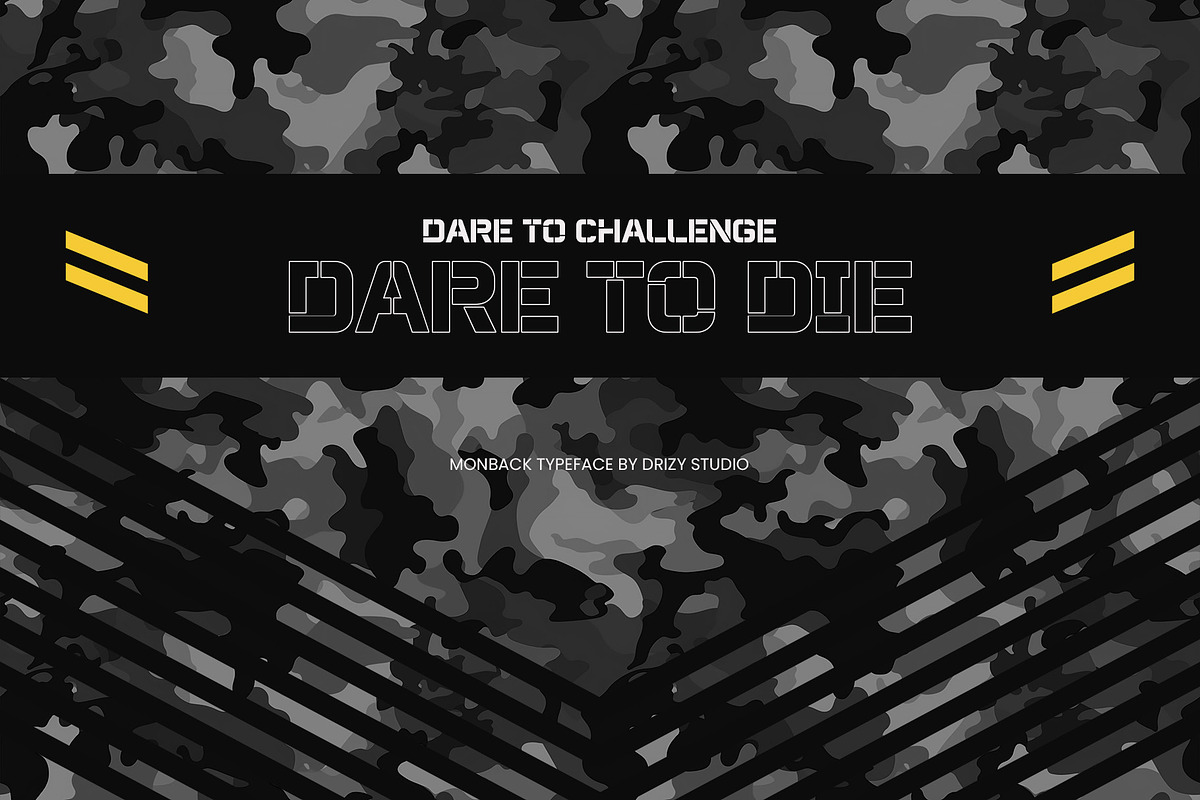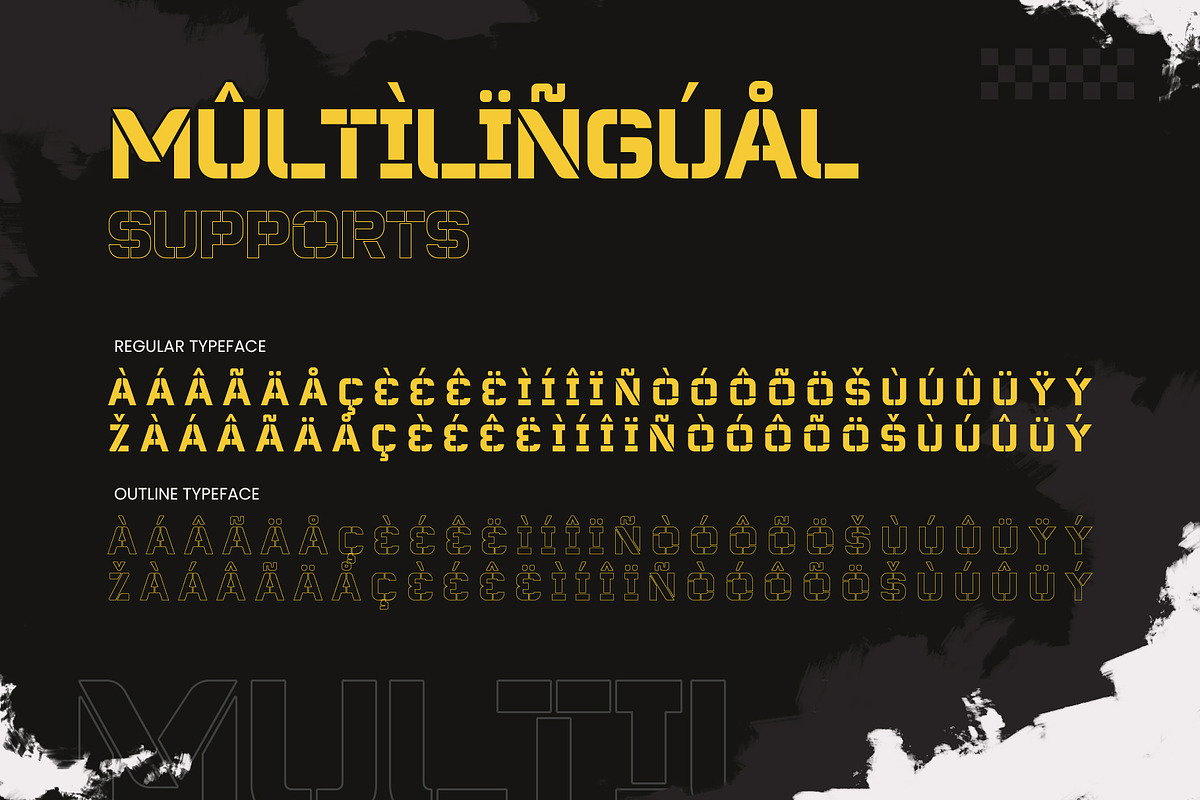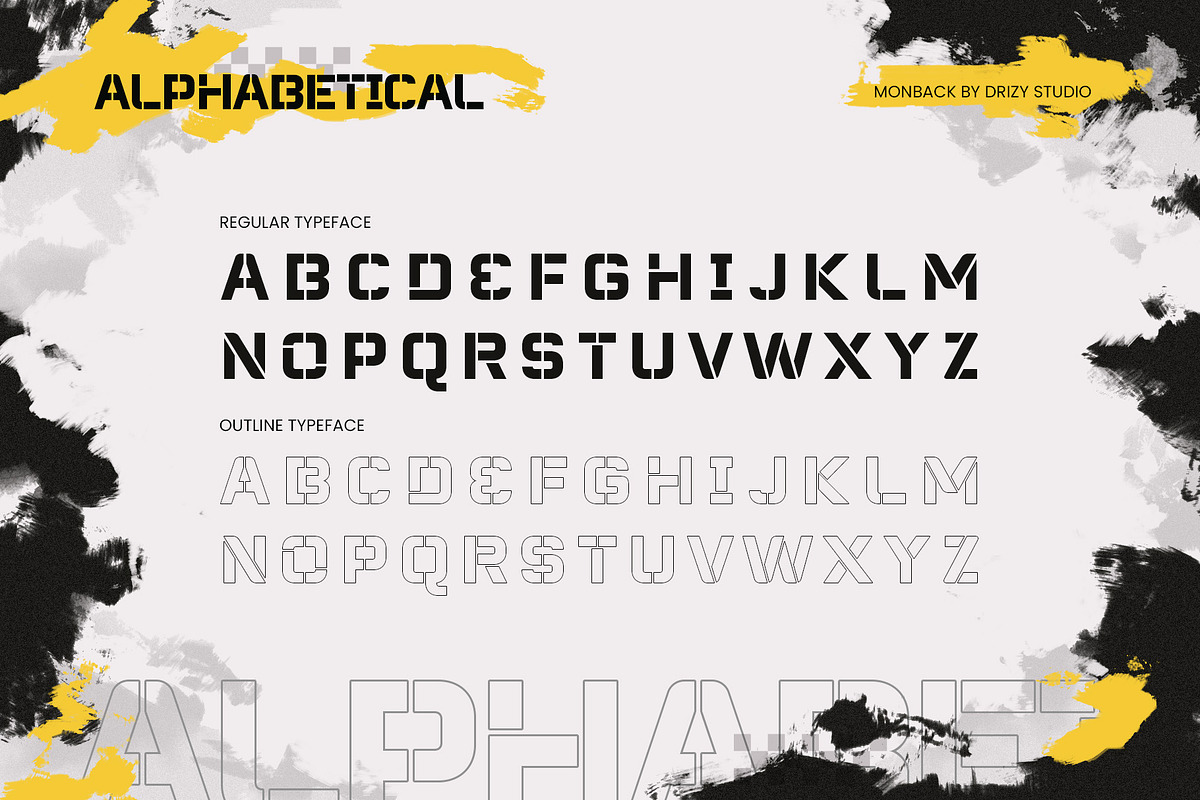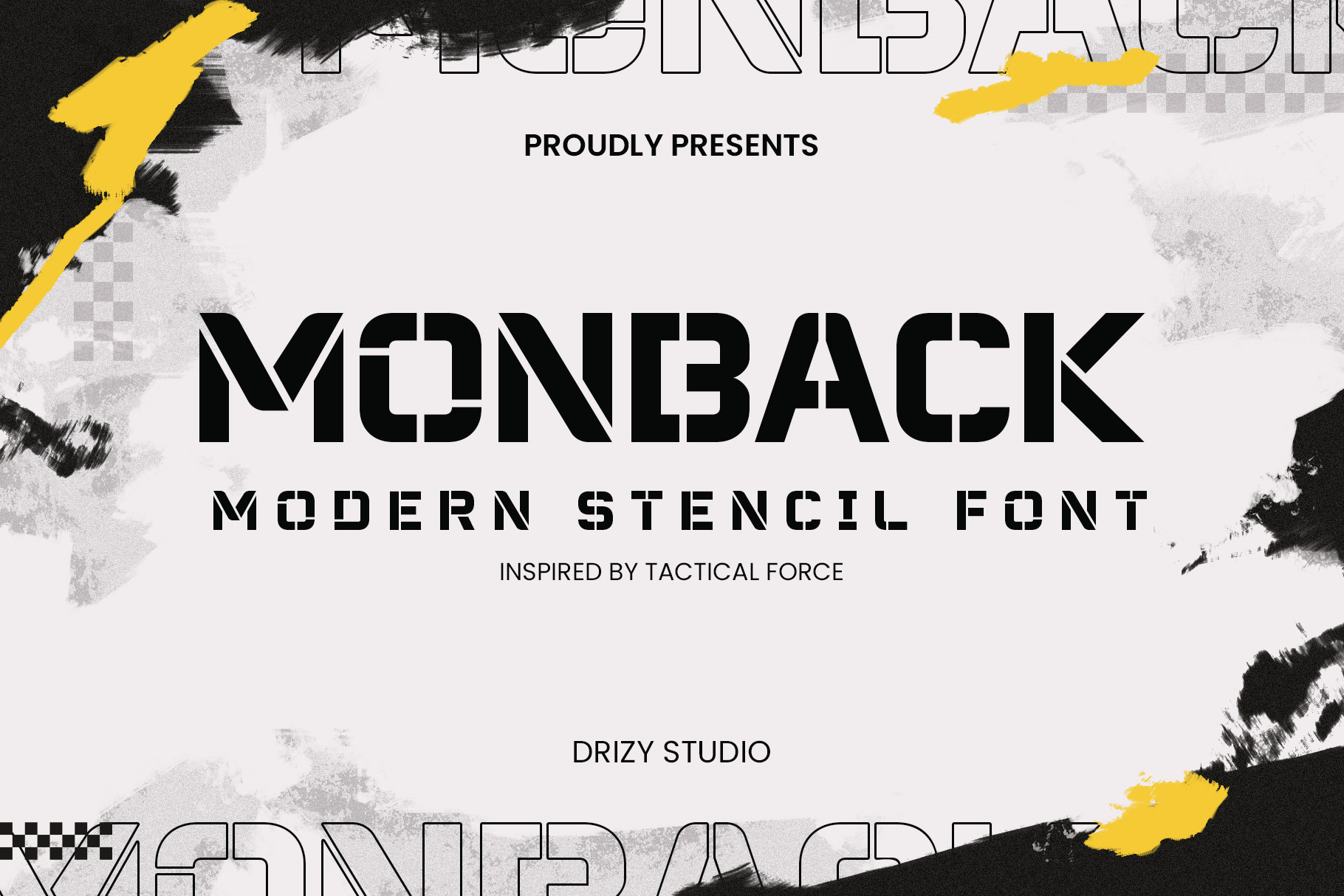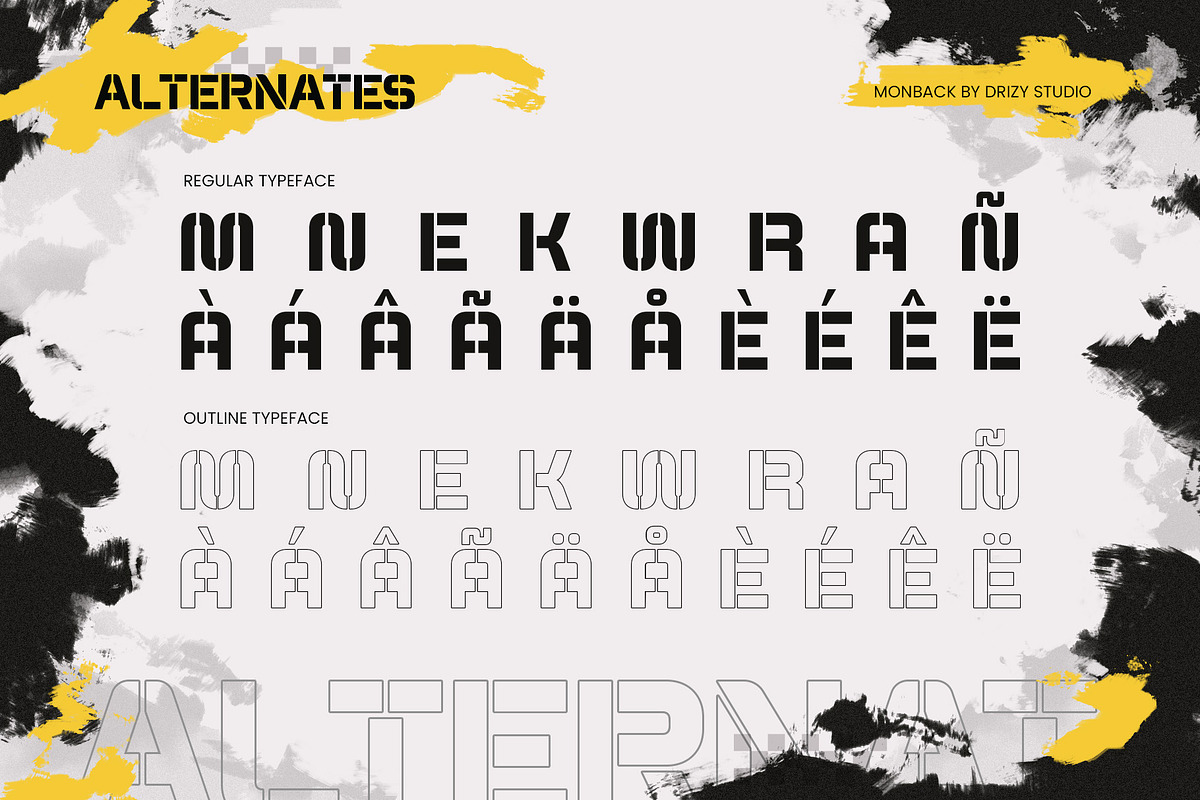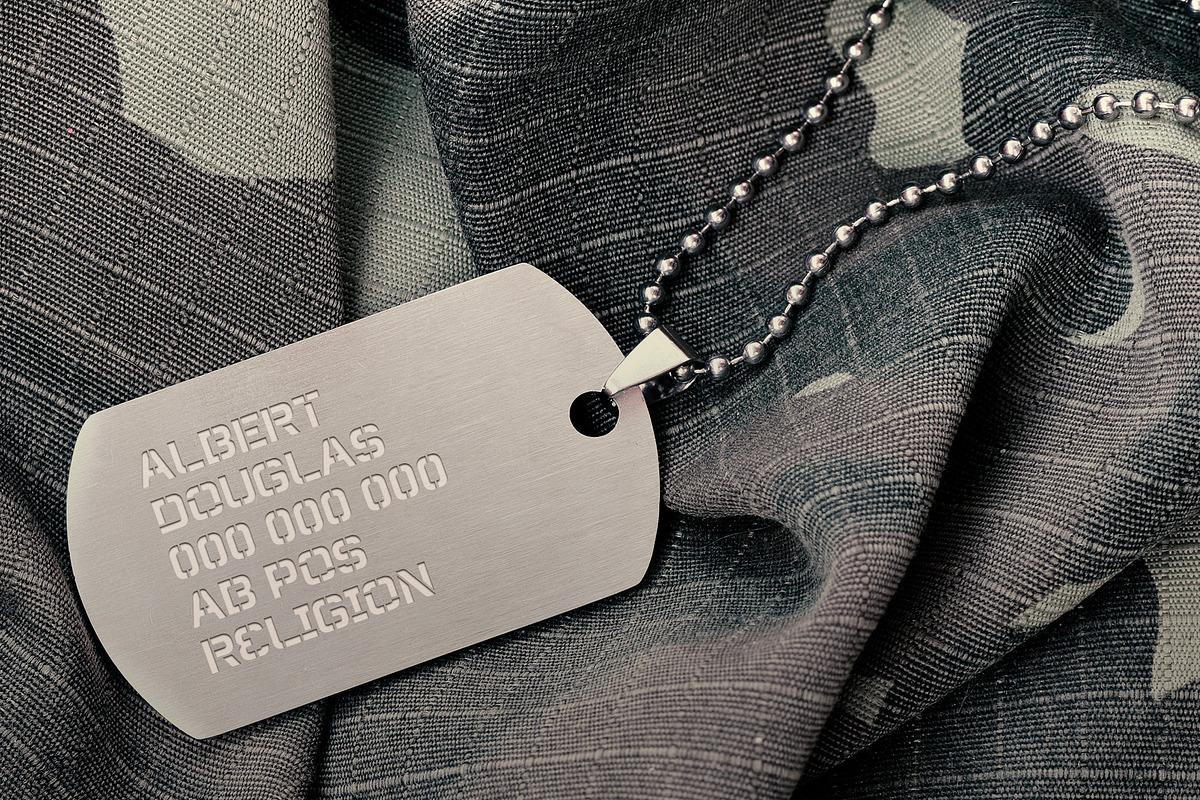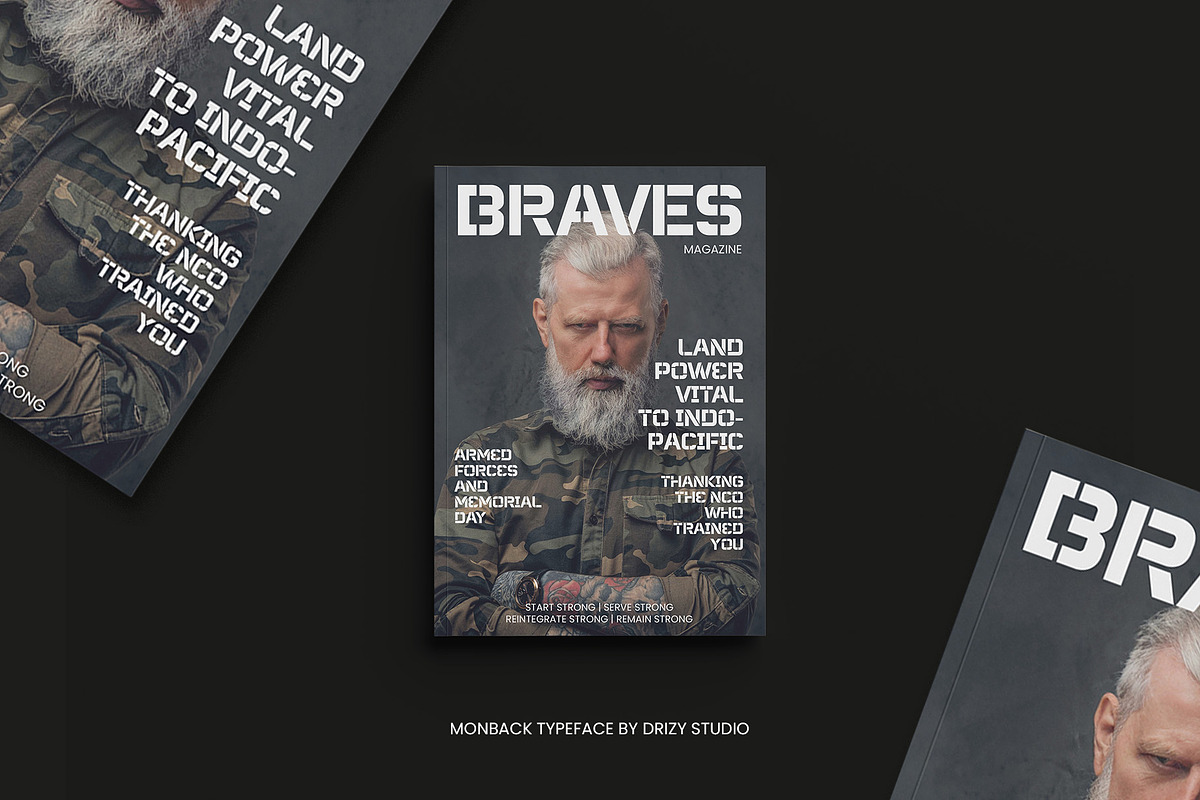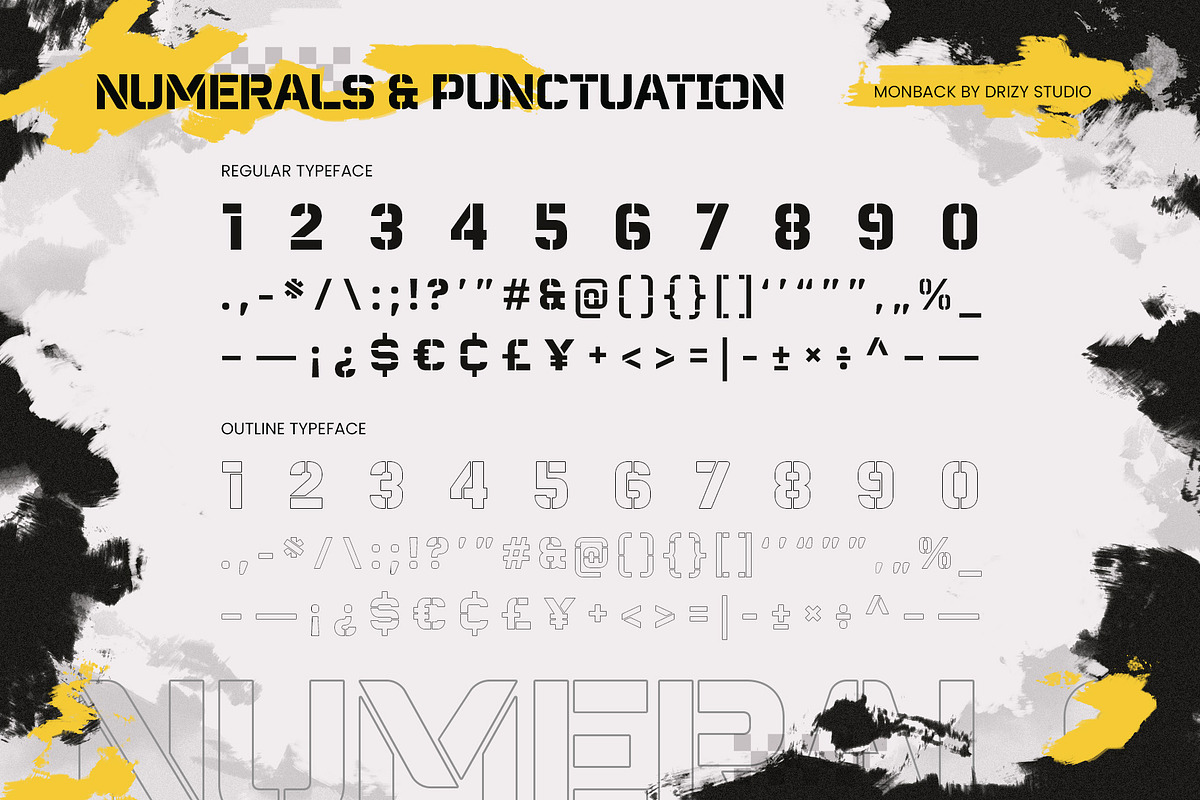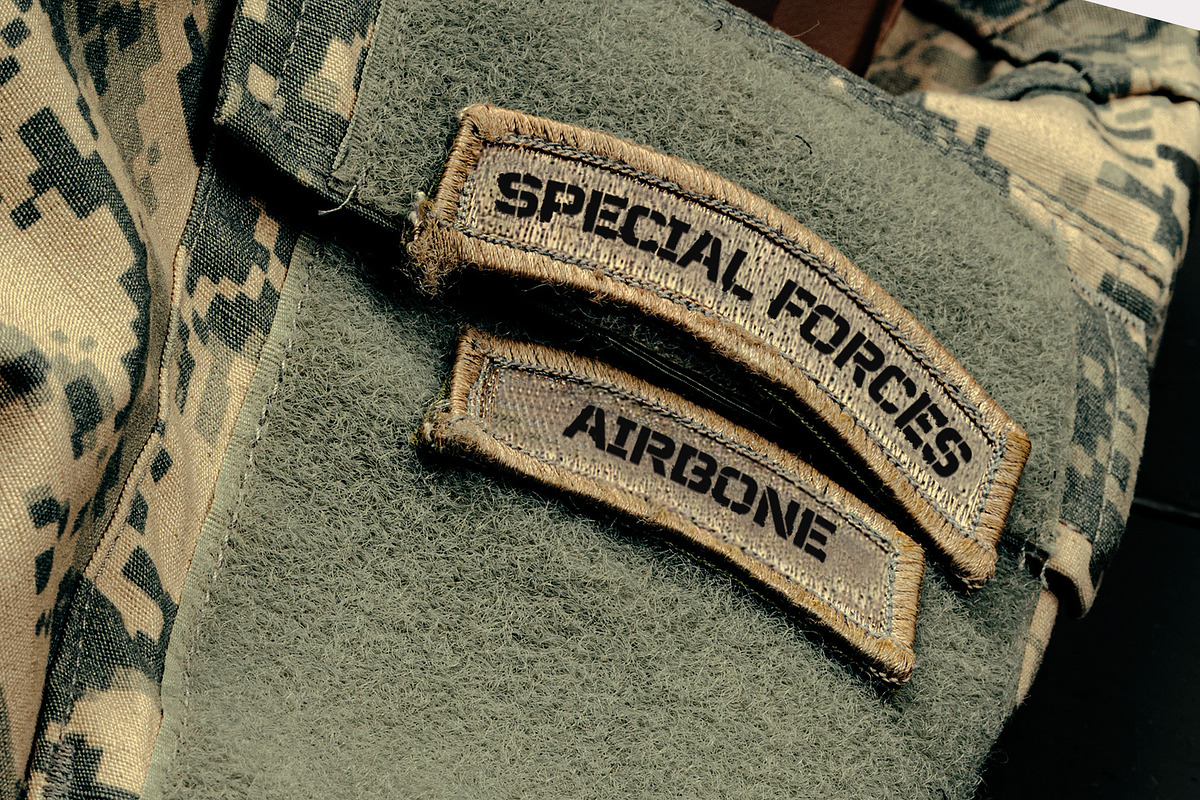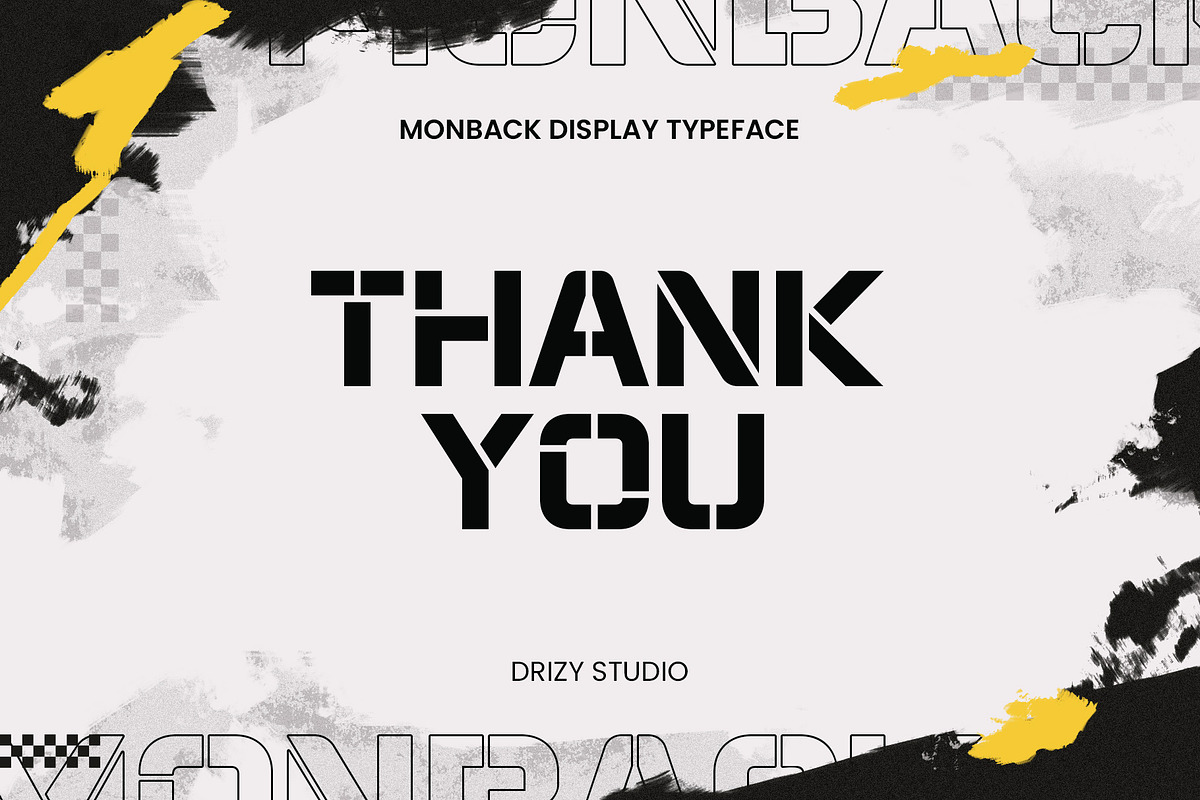
Monback - Modern Stencil Font
Monback is a modern stencil font that combines the elegance of a traditional stencil design with a sleek, minimalist aesthetic. This typeface is the perfect choice for designers, artists, and creatives looking to make a bold statement.
Monback features: Character Set Variable: Outline & Regular Punctuation & Numbers Multilingual Support